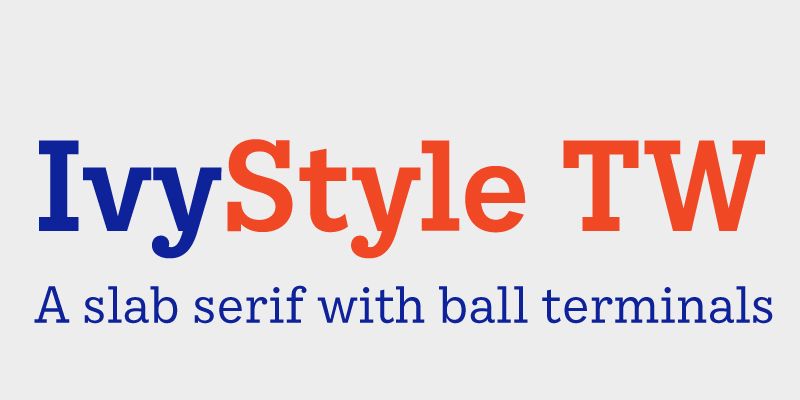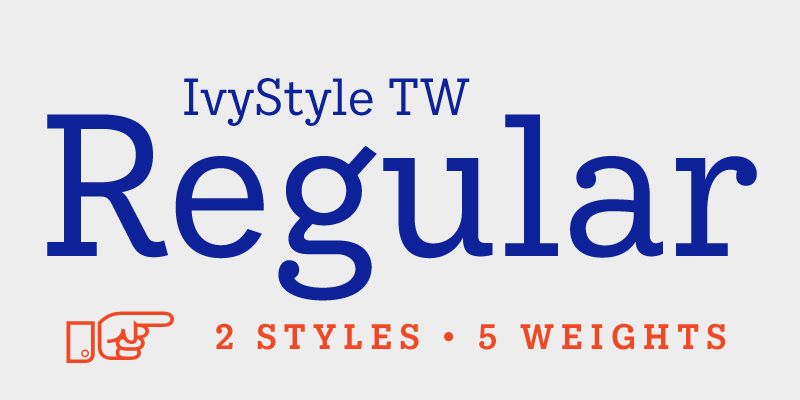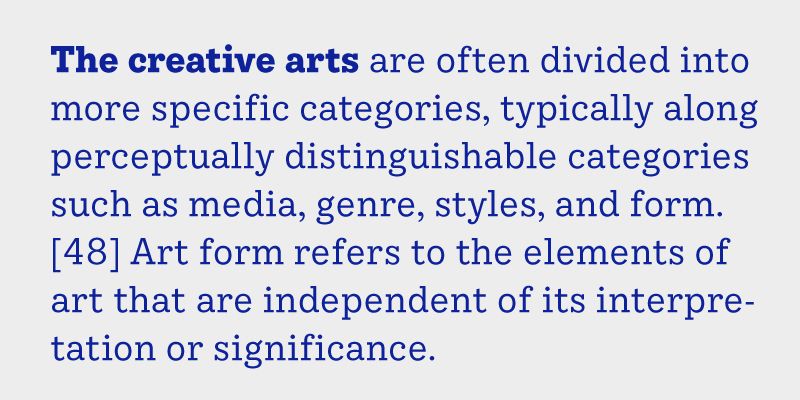
While IvyStyle TW takes its cues from the typewriter genre, it is not monospaced. Because each character is allowed to occupy the space it needs, the typeface has room to breathe, and the bolder weights don’t become too dark. This contemporary slab serif with distinctive ball terminals exudes a friendly air. With more styles than normal typewriter faces, IvyStyle TW is a reliable text face. Pair IvyStyle TW with its sibling IvyStyle Sans for harmonious slab serif / sans serif combinations. The Ivy Foundry, 2016.